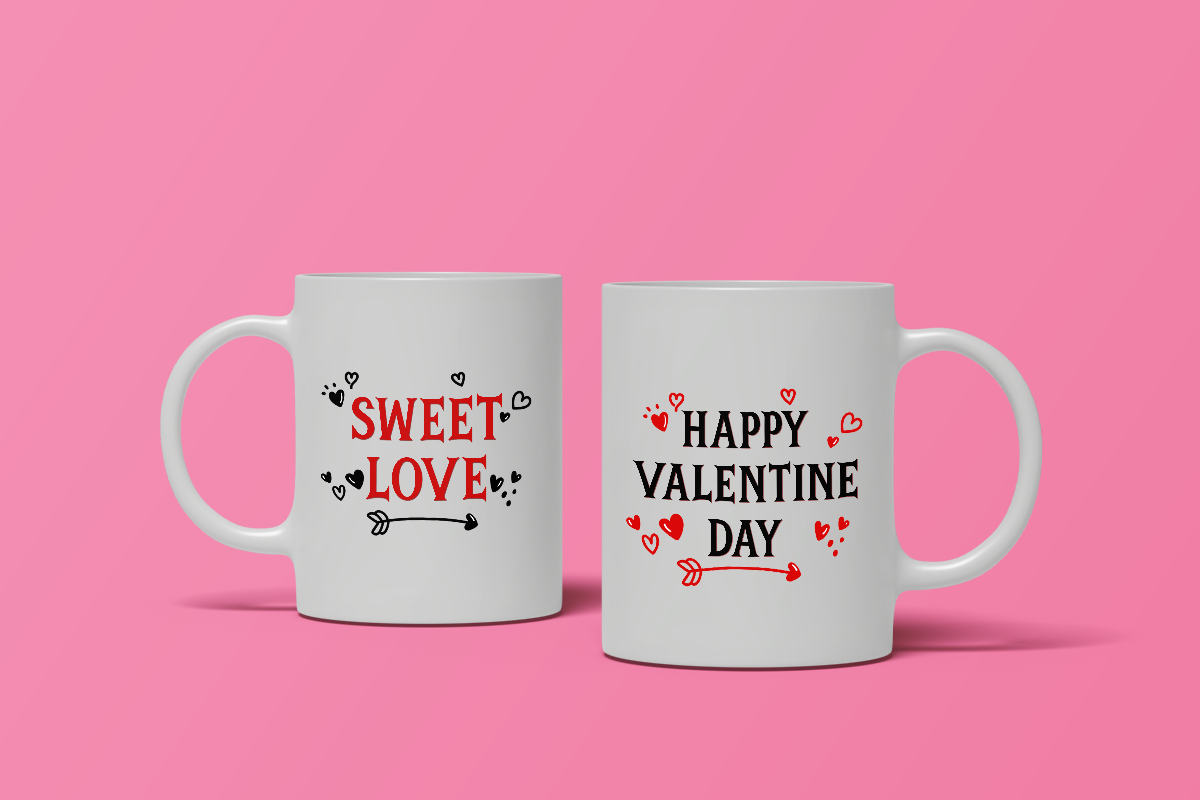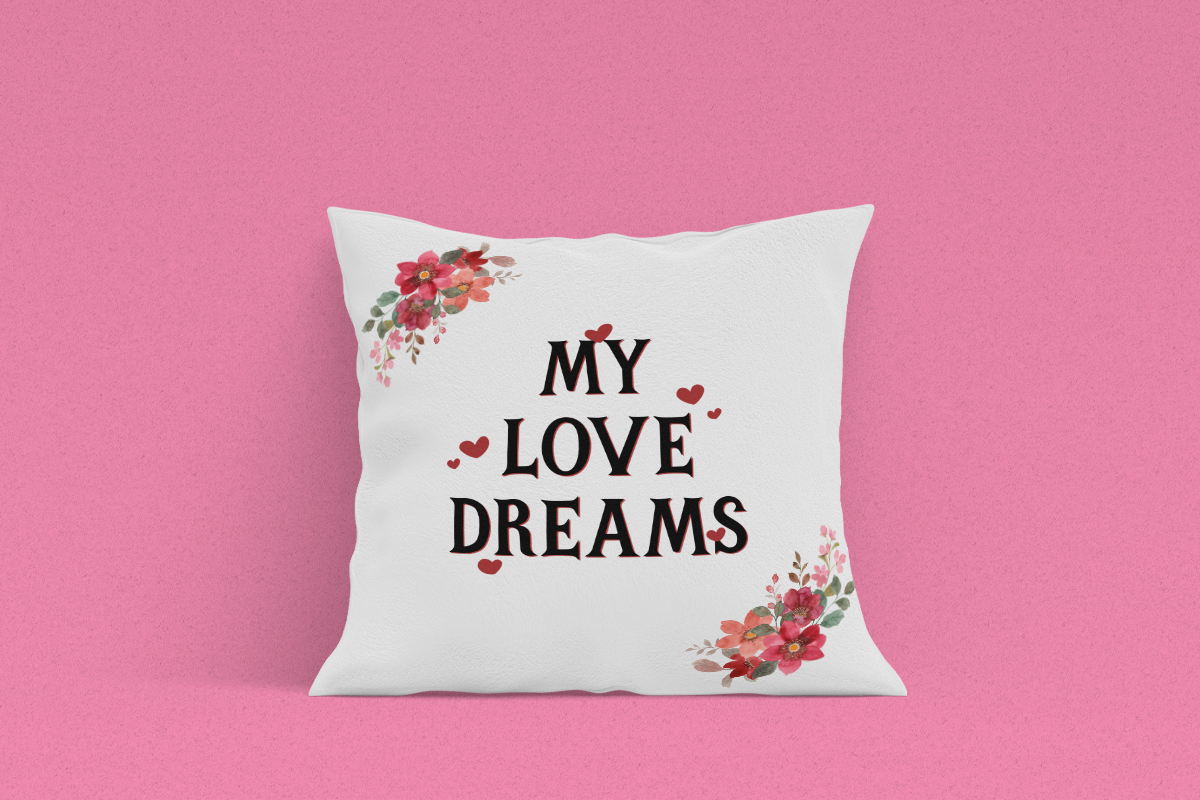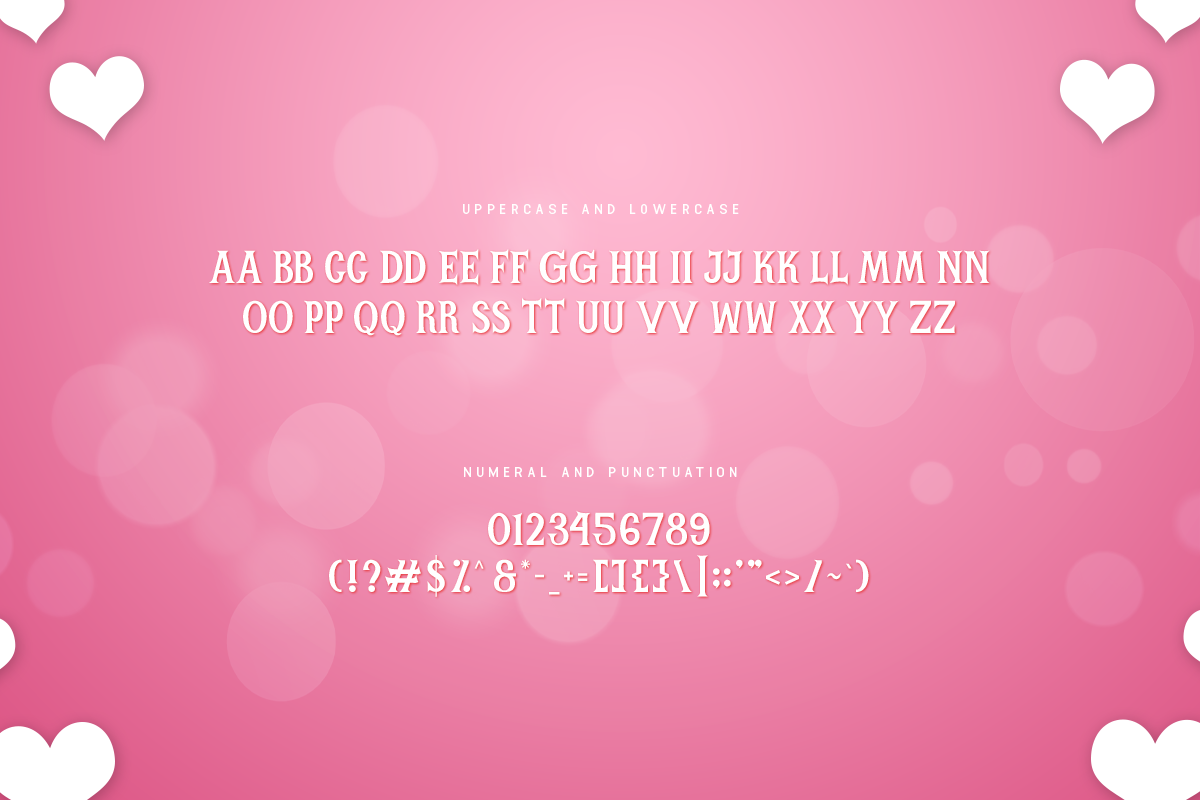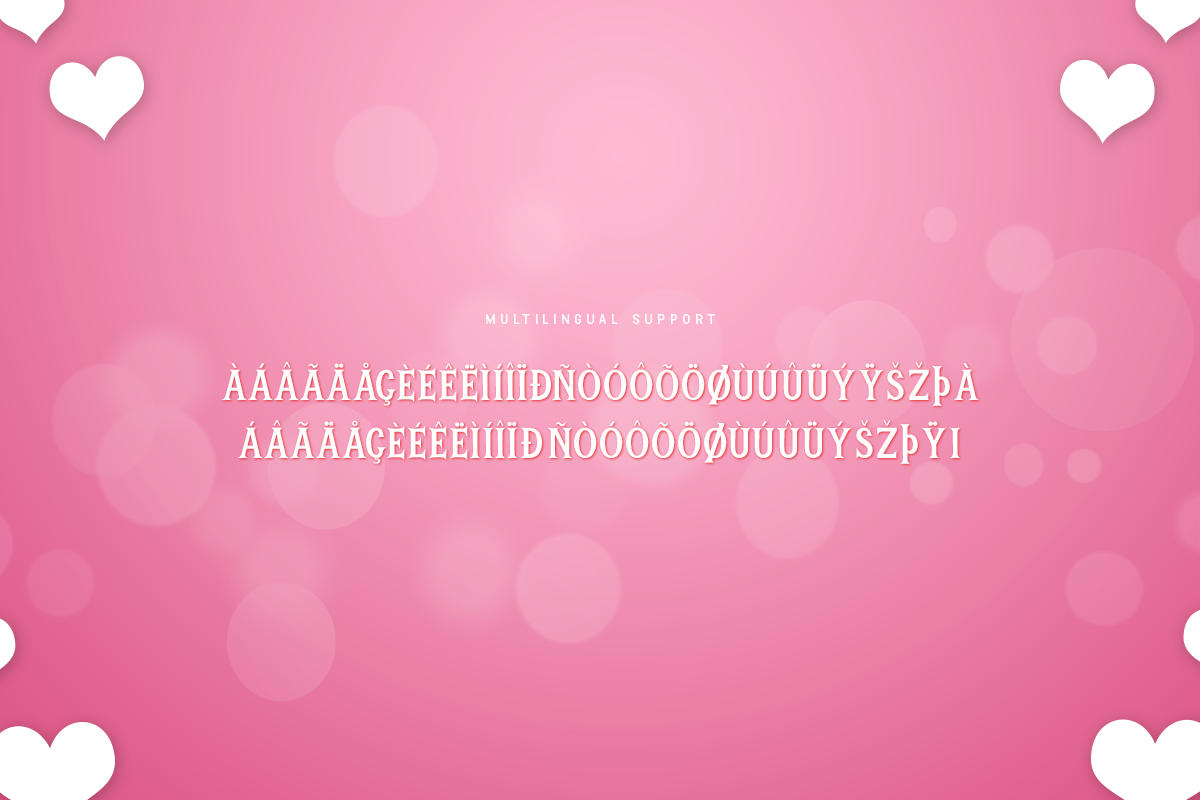
Valentine Serenade A Modern Valentine Serif Font is part of our Serif font family. This font is an elegant typeface that exudes a simple but romantic feel. This font has lots of beautiful flows and curves in its design. Compared to other font types, Serif typefaces have more limited uses. Valentine Serenade A Modern Valentine Serif Font is the best Valentine font to use for things like Valentine's celebrations, banquet decorations, souvenirs, and many more. You can use this typeface for printing invitations, love letters, posters, and banners. A serif typeface like this is one of our legible fonts that can use in romantic-themed movies. Movie titles with the theme of love story struggles are the best choice for Valentine Serenade A Modern Valentine Serif Font. Valentine Serenade A Modern Valentine Serif Font doesn't need many decoration or extra work to look good on print and non-printing materials. All you need is the skill to understand what combinations of good fonts and different typefaces work together. You can bring out the best in our fonts with matching colors and themes. Avoid using the Valentine Serenade A Modern Valentine Serif Font in long texts with a lot of dense information for your readers because our Valentine Serenade A Modern Valentine Serif Font may be one of the best looking Serif fonts but may not be the best font to choose if you want a more formal typeface for projects. Our Serif fonts collection is compatible for use as; Figma fonts, Canva fonts, Freepik Fonts, and Adobe Fonts. They also work as Windows Fonts and Apple Fonts. For your social media needs, you can use and install fonts in our Script & Signature font collection to use as Instagram Fonts, Facebook Fonts, and Twitter Fonts.